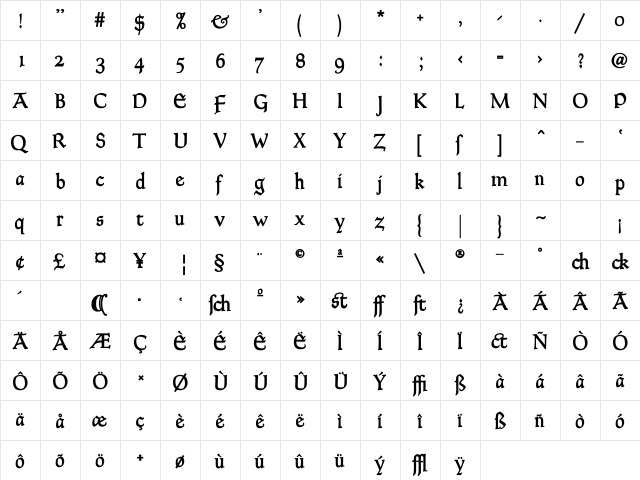
Goudy Thirty DemiBold Font Preview
Goudy Thirty DemiBold
Goudy Thirty DemiBold Font Details
Design Context for Goudy Thirty Typeface
Goudy Thirty is a composed and adaptable typeface that performs quietly and consistently across a wide range of design contexts. The heavy weight commands attention and anchors typographic hierarchies.